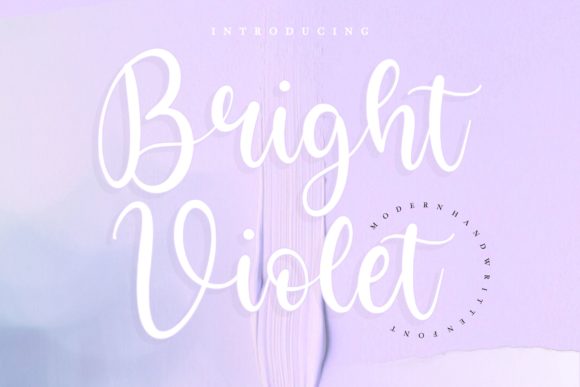
Bright Violet: A Sweet and Elegant Handwritten Font
As I opened a new brand board for a local bakery, I knew I needed something special to capture the essence of their artisanal pastries and warm, inviting atmosphere. That's when I stumbled upon Bright Violet, a font that exudes both elegance and a touch of whimsy.
First Impressions: Delicate and Charming
Bright Violet is a premium handwritten font with a delicate and flowing style. Its elegant curves and gentle lines make it perfect for creating a soft, romantic feel. The font's personality is sweet and refined, making it ideal for projects that need a touch of sophistication without feeling overly formal.
Testing in Branding: From Logo to Packaging
I started by testing Bright Violet on a logo concept for the bakery. The result was stunning. The font's graceful letters added a personal, handcrafted touch that perfectly aligned with the bakery's brand. Next, I moved on to the packaging mockup. The font looked beautiful on the labels, adding a touch of luxury and charm to the product.
For the business cards, Bright Violet worked wonderfully as a display font. It stood out, making the contact information memorable and visually appealing. When it came to the website header, the font's readability at larger sizes made it an excellent choice for a welcoming and engaging first impression.
Versatility in Design: From Social Media to Print
Bright Violet shines in social media graphics. I used it for Instagram posts, and the font's unique style caught the eye, making the content stand out in a sea of generic posts. For editorial design, such as a menu or a promotional flyer, the font added a creative and personal touch, enhancing the overall aesthetic.
However, it's important to note that while Bright Violet is versatile, it may not be the best choice for long body text or small sizes. The intricate details and delicate lines can become less legible, which could impact readability. For these scenarios, pairing Bright Violet with a clean, sans serif font like Helvetica or a modern serif like Garamond can create a balanced and professional look.
Font Pairing and Practical Advice
When it comes to font pairing, Bright Violet works beautifully with a variety of typefaces. For a classic and elegant look, pair it with a serif font like Baskerville. For a more modern and clean approach, a sans serif like Futura complements its delicate style. Additionally, using a script font like Pacifico can add a complementary, yet distinct, flair to your design.
Final Thoughts on Bright Violet
Bright Violet is a delightful and versatile font that can elevate a wide range of design projects. Its sweet and elegant style makes it a perfect choice for wedding invitations, stationary art, and social media posts. Whether you're designing a brand identity, packaging, or editorial layouts, Bright Violet adds a touch of refinement and charm. Just remember to test it thoroughly and consider its limitations for smaller text and long-form content. With the right application, Bright Violet can truly make your designs stand out.